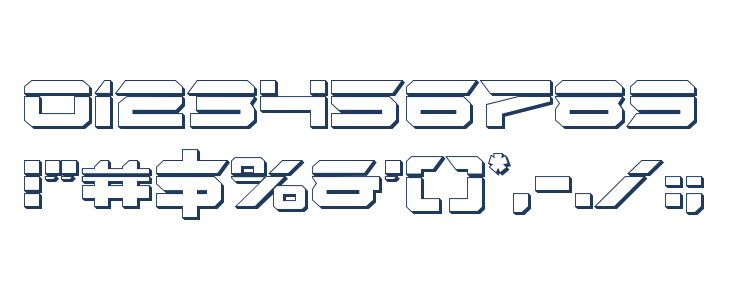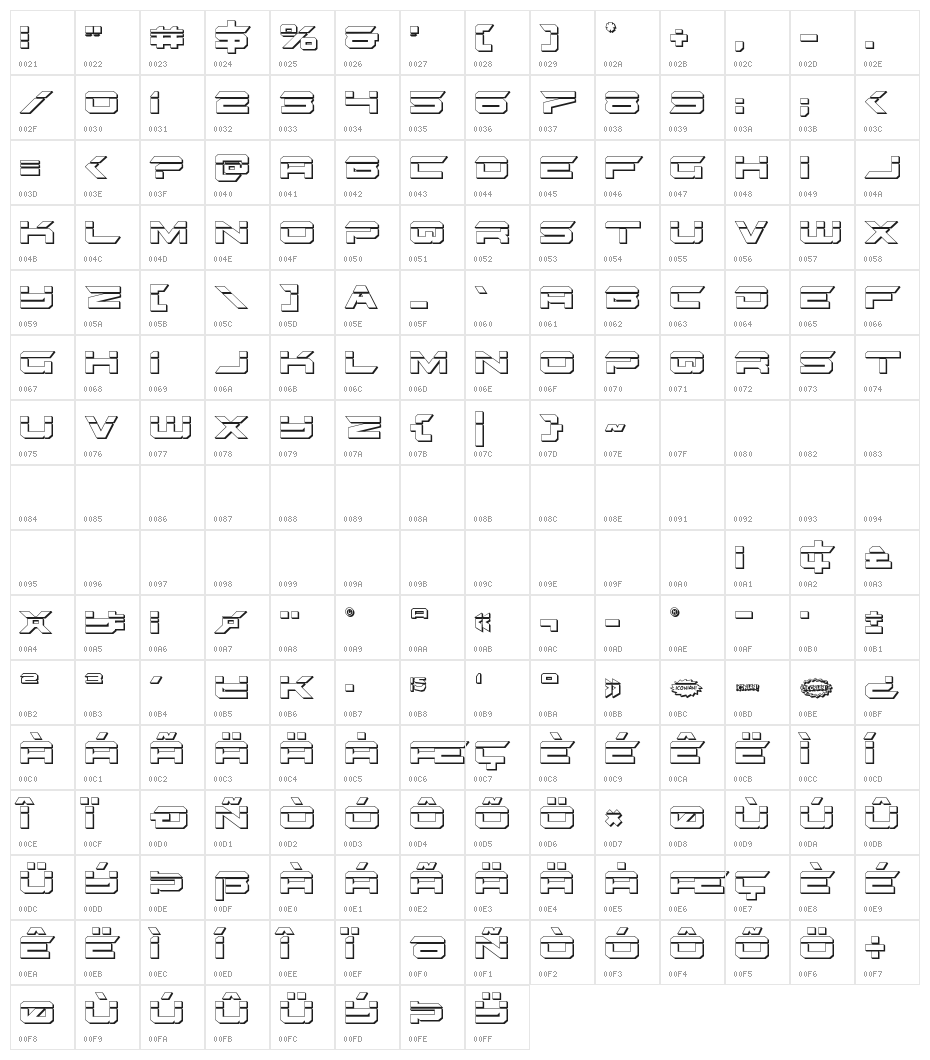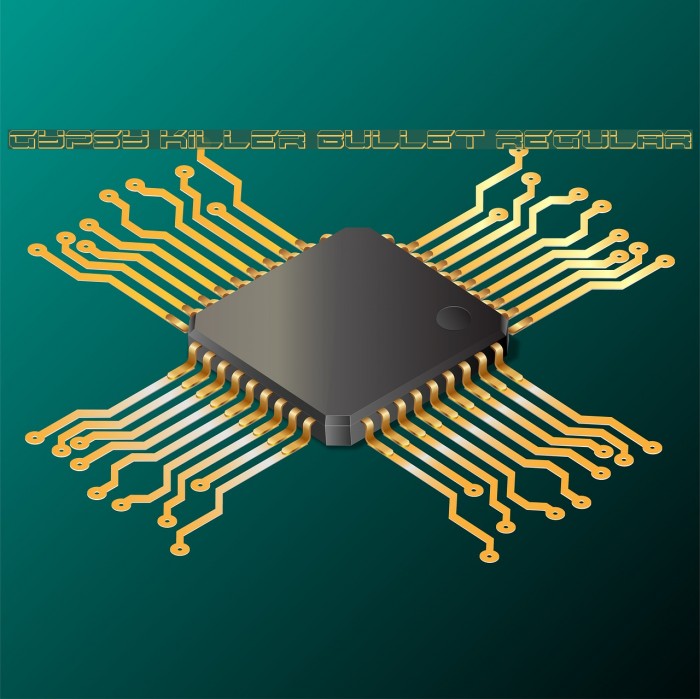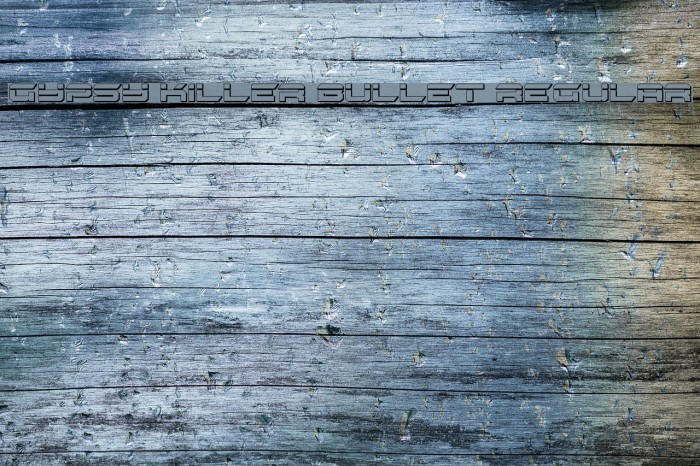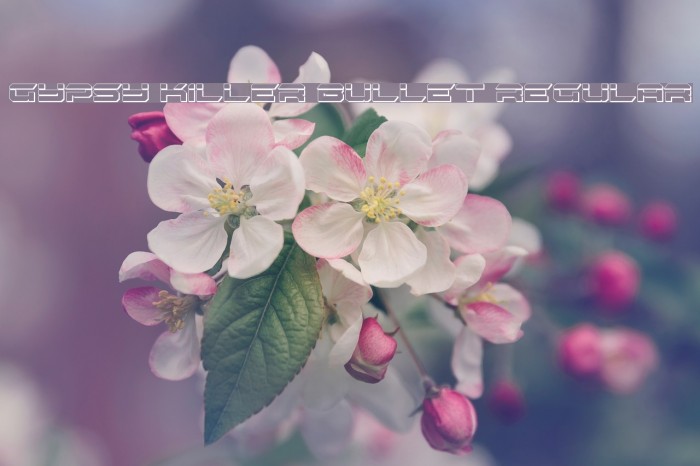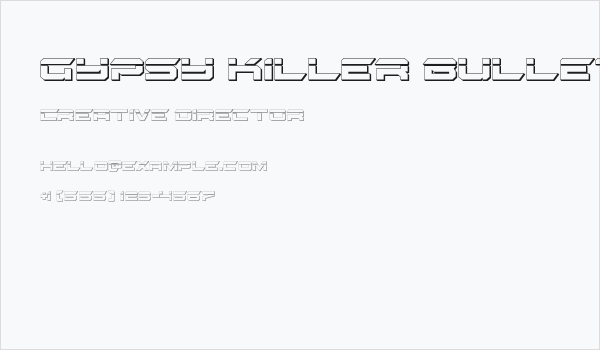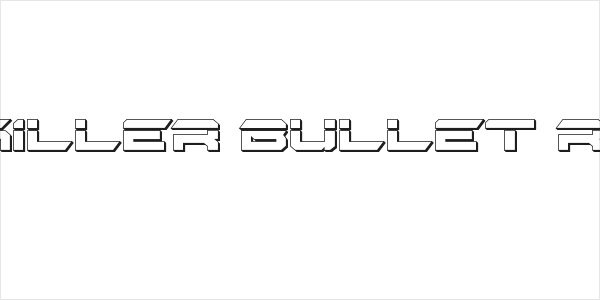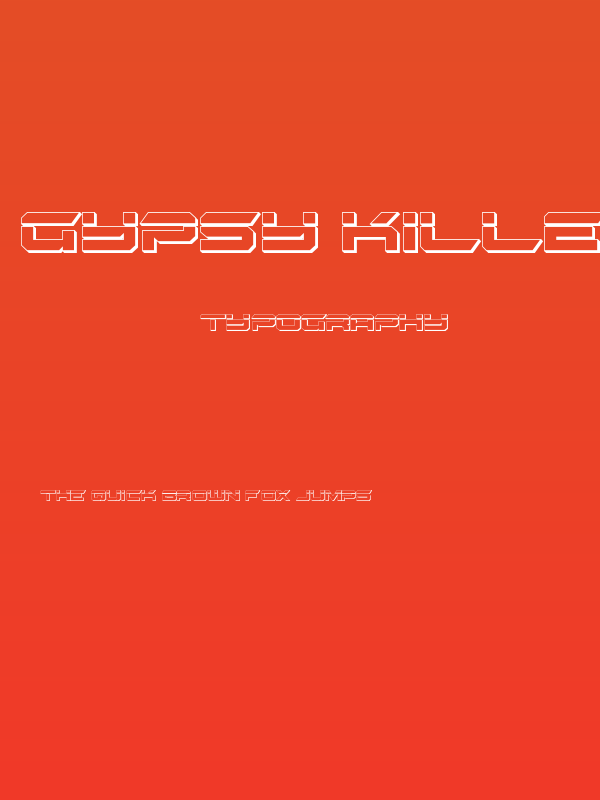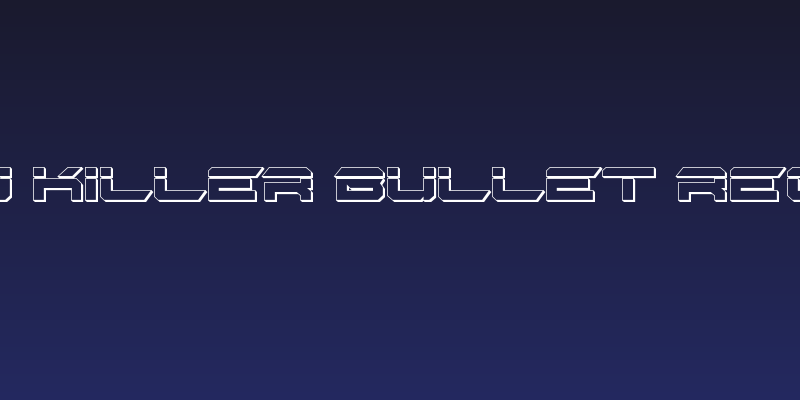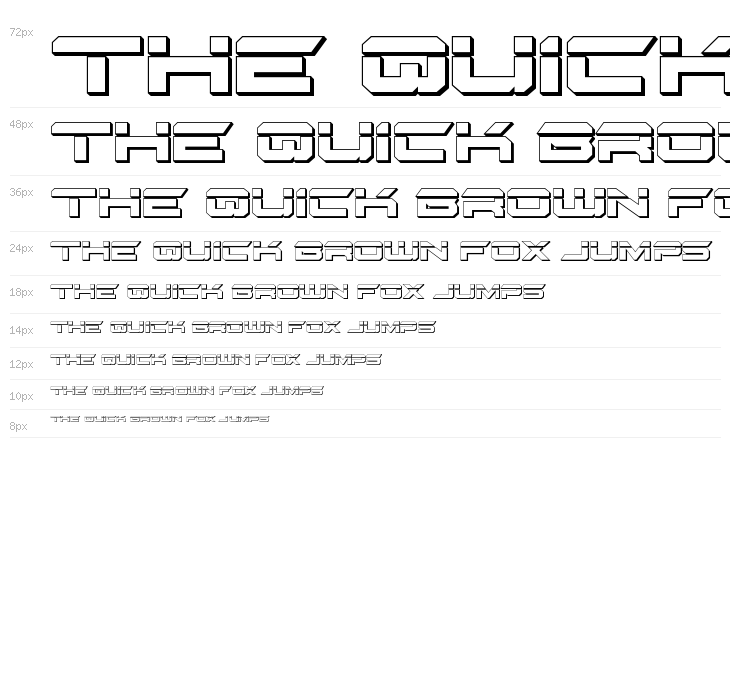
Gypsy Killer Bullet Regular Font
Gypsy Killer Bullet Regular Description
This font features a bold, futuristic design with a distinct three-dimensional effect. The characters are outlined with a double line, creating a sense of depth and structure. Each letter is constructed with angular, geometric shapes, giving it a modern and edgy appearance. The uppercase and lowercase letters maintain a consistent style, while the numbers and special characters complement the overall aesthetic. The font's unique style makes it stand out, ideal for projects that require a strong visual impact.
| Proposed Projects | Ideal for sci-fi themed designs, video game graphics, posters, and branding that requires a modern, edgy look. |